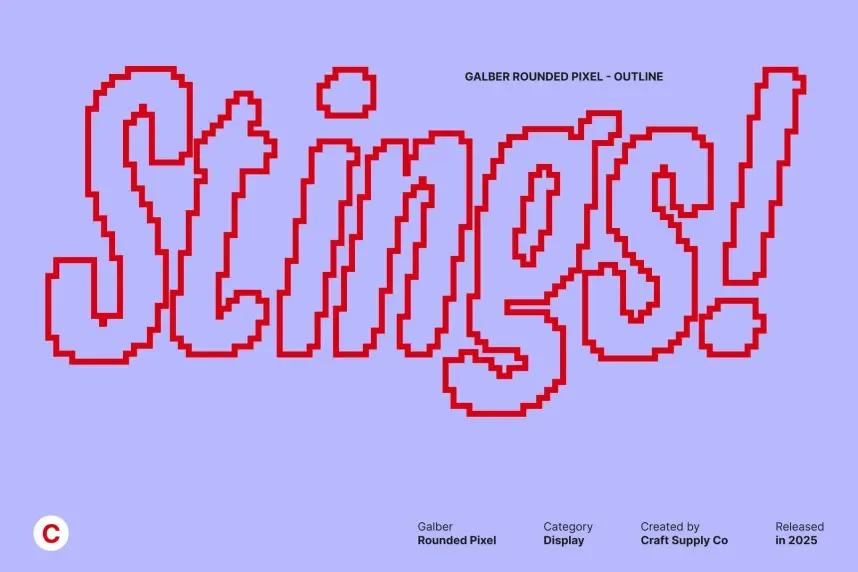
Galber Rounded Pixel Font blends the pixelated look with rounded corners, making it suitable for digital projects that require a friendly yet modern appearance. Its easy readability and distinct shape make it ideal for user interfaces, branding, and logos that need a digital edge without being harsh.